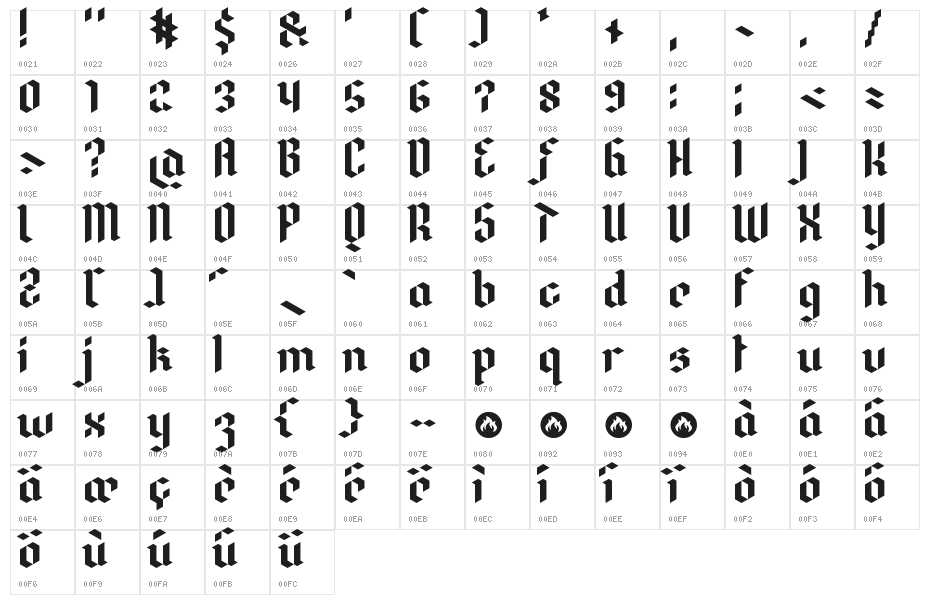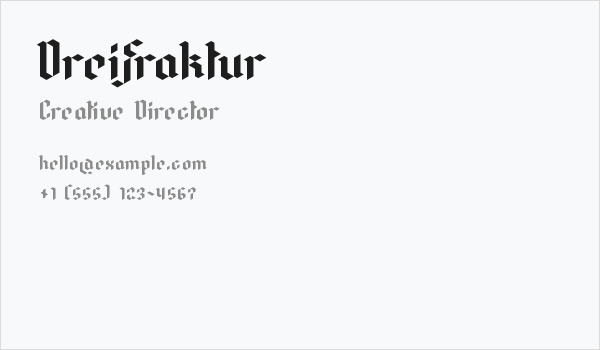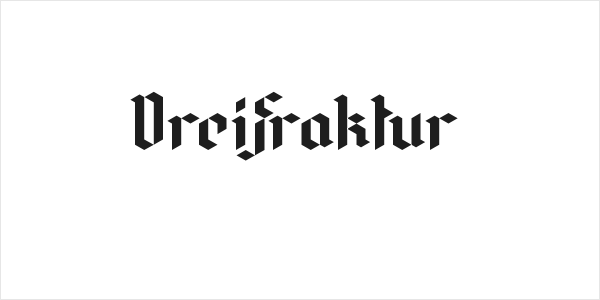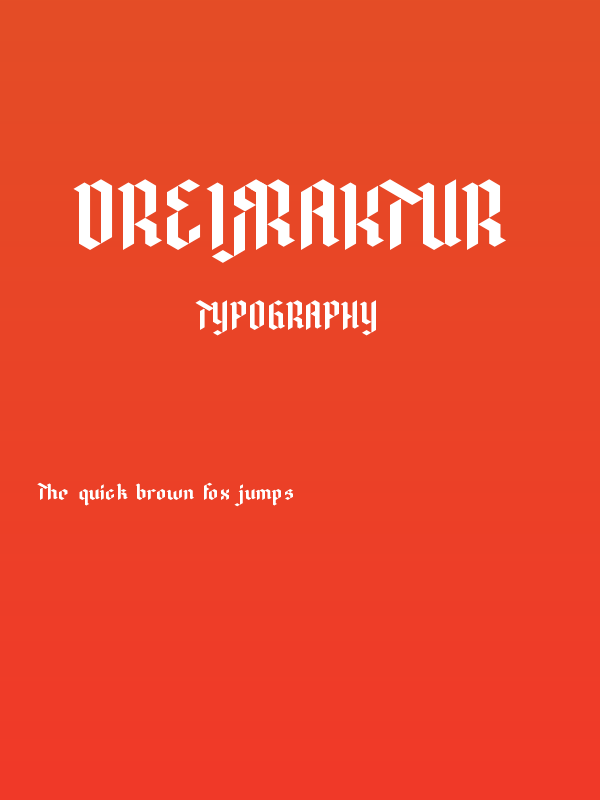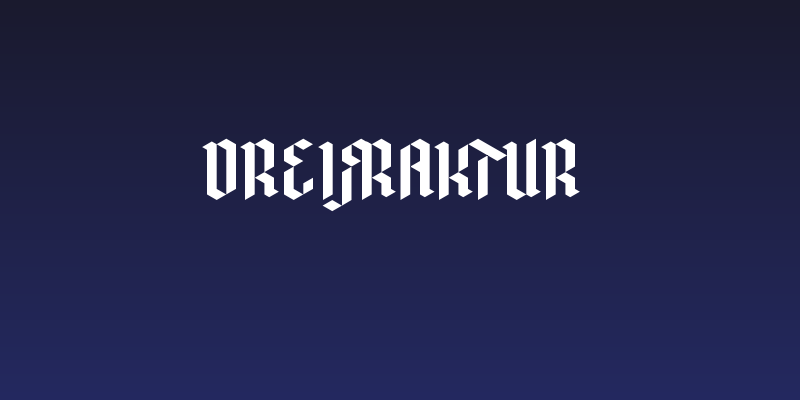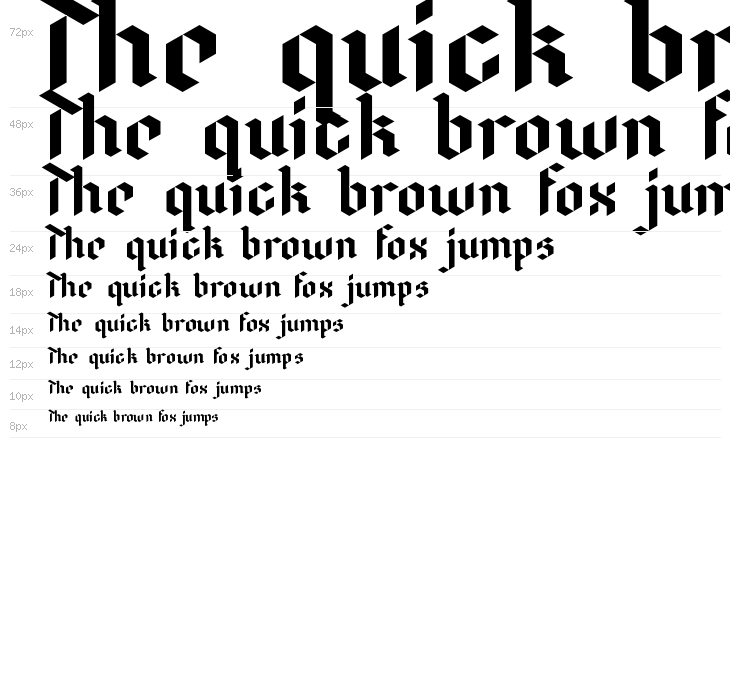
DreiFraktur Font
DreiFraktur Description
This font exhibits a traditional blackletter style with sharp, angular lines and a bold presence. The uppercase letters are tall and narrow, featuring intricate details that are characteristic of Gothic script. The lowercase letters maintain the same angularity, providing a cohesive look across the typeface. Numbers and special characters are designed with the same attention to detail, ensuring consistency. The overall appearance is both historical and dramatic, making it suitable for projects that require a touch of elegance and formality.
| Use Case | Logos, Headlines, Decorative purposes |
| Proposed Projects | Ideal for historical documents, wedding invitations, certificates, and branding that requires a classic and formal touch. |